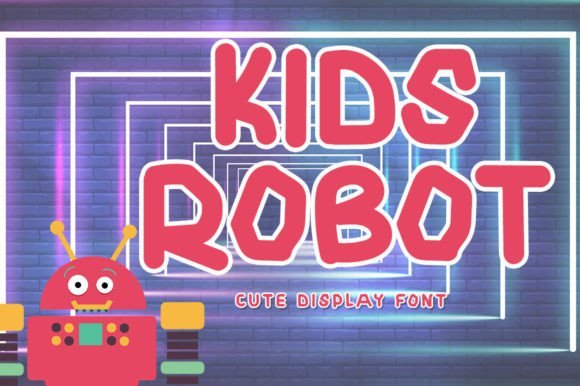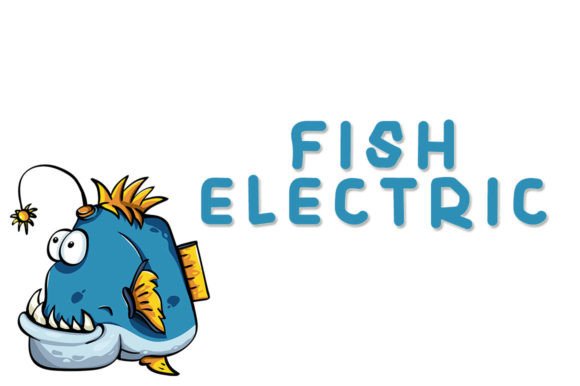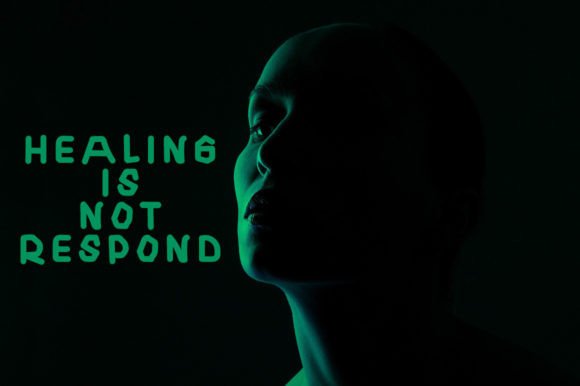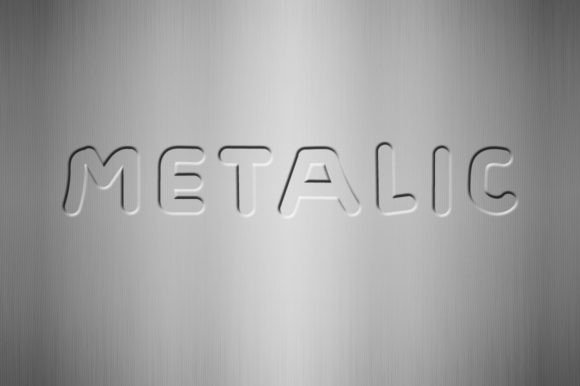
Unlock the Joy of Design with Kids Robot Font
Have you ever stared at a blank canvas, waiting for the perfect idea to strike? That’s where the magic happens – in those moments of pure creative freedom. And, what if I told you that a simple font can bring your designs to life? Welcome to the world of typography, where the right font can make all the difference.
Meet Kids Robot Font, a beautiful and bold display font that’s perfect for adding a touch of joy to your designs. Whether you’re working on a formal project or something more casual, Kids Robot Font is the perfect companion to elevate your creations. Its fresh, clean, and modern design will make your business stand out from the crowd, and that’s exactly what you need to succeed in today’s competitive market.
Kids Robot Font Key Features
- Unique Character Design: The font features playful and futuristic robot characters that will captivate children’s attention.
- Color Options: The font includes a range of color options, including primary colors, pastel colors, and metallic colors to add visual interest.
- Comprehensive Character Set: The font includes a comprehensive character set, including uppercase and lowercase letters, numbers, and punctuation marks.
- Perfect for Children’s Content: The font is specifically designed for children’s content, including books, magazines, and websites, to create a fun and engaging reading experience.
Kids Robot Font Review
Overall, I think the Kids Robot Font is a fun and playful choice for kid-friendly designs. ✨ It’s perfect for creating a whimsical atmosphere in children’s books, educational materials, or even advertisements targeting young audiences. The font’s bold lines and rounded edges give it a friendly, approachable feel that kids will love.
Here are some specific things that work well in this font:
- ✨ **Unique design**: The font’s robotic theme sets it apart from more traditional sans-serif fonts.
- ✨ **Legibility**: Despite its playful design, the font is still easy to read, making it a great choice for body text.
- ✨ **Customization options**: The font comes with a range of weights and styles, allowing designers to customize its look to suit their needs.
- ⚠️ **Limited compatibility**: The font may not be compatible with older software or systems, which could limit its use in certain projects.
- ⚠️ **Not ideal for fine text**: While the font is legible, it’s not the best choice for small text or fine details, where a more precise font would be more suitable.
Overall, I think the Kids Robot Font is a great choice for designers working on kid-friendly projects, as long as they’re aware of its limitations and take those into account when using it.
Tips for Getting the Most Out of Kids Robot Font
For best results, use Kids Robot Font for titles, headings, and emphasis. It’s also great for creating a playful and futuristic vibe in your designs.
Kids Robot Font is perfect for:
- Children’s books and educational materials.
- Toy and game packaging.
- Science and technology-themed designs.